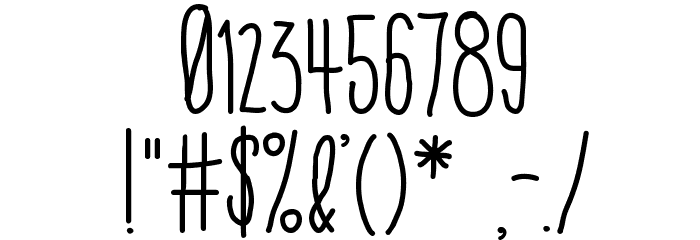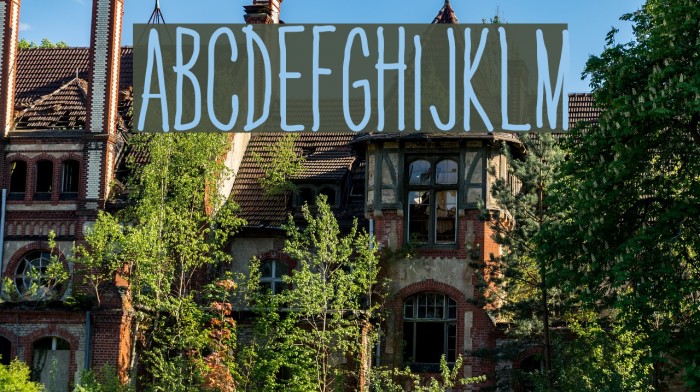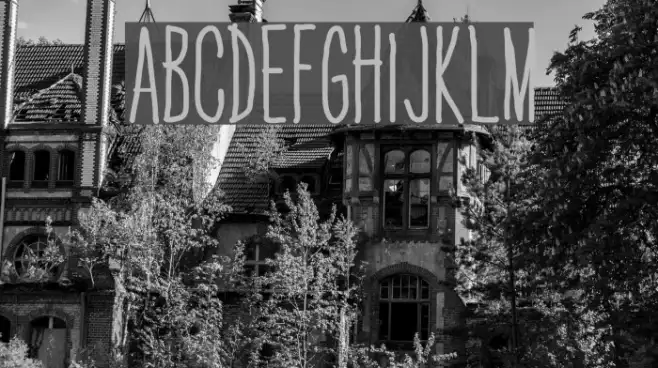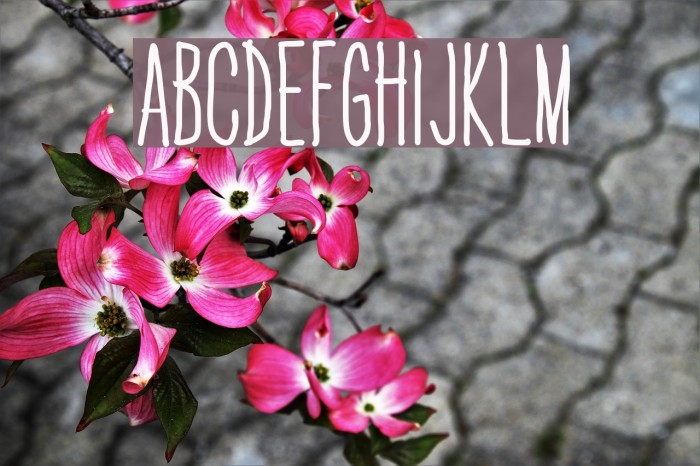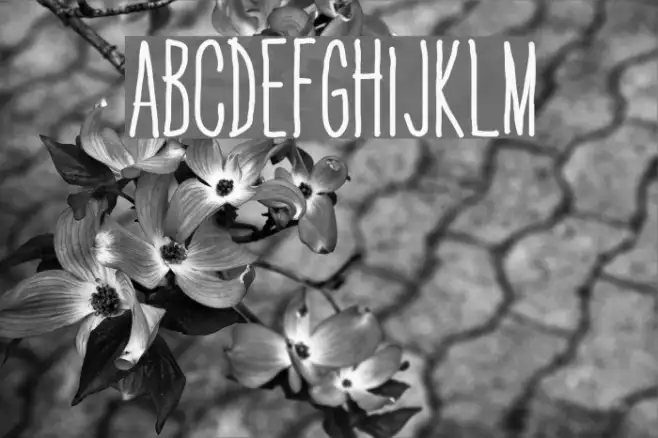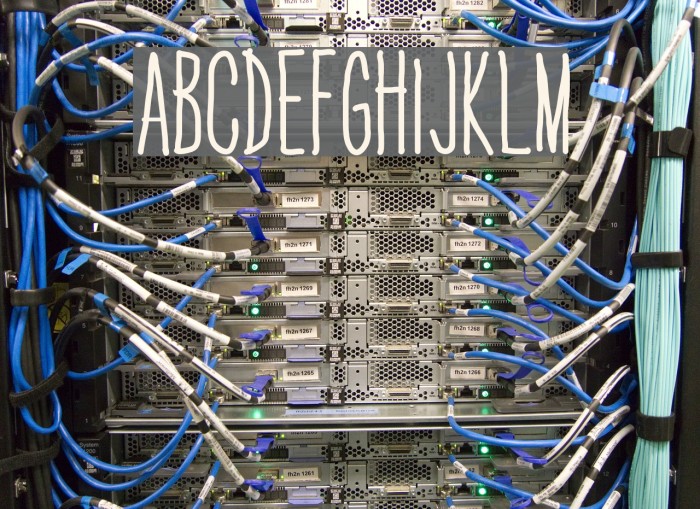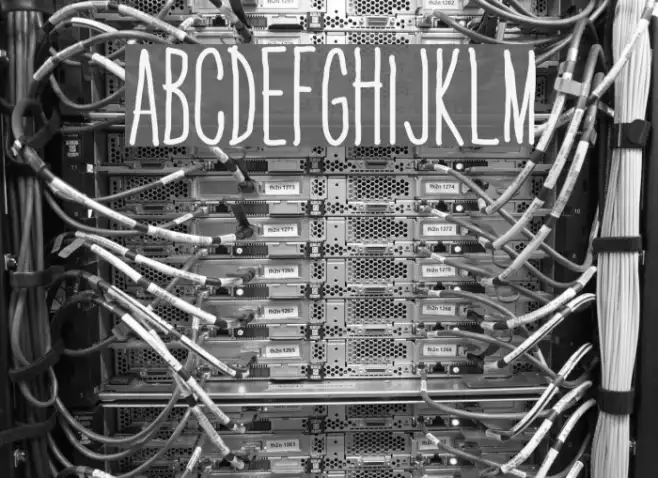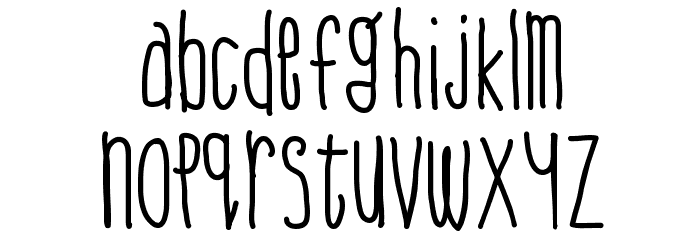
LBP2 Font
This font features a playful and whimsical design with tall, narrow characters that have a hand-drawn appearance. The strokes are uneven, giving it a casual and informal feel. The uppercase and lowercase letters maintain a consistent style, with slight variations that add to the charm. Numbers and special characters are included, each with a unique flair that complements the overall aesthetic. The font's quirky nature makes it suitable for creative and artistic projects, where a touch of personality is desired.
A playful, hand-drawn font with tall, narrow characters and a whimsical style.
• Proposed Projects: Ideal for children's books, greeting cards, playful branding, and artistic posters.